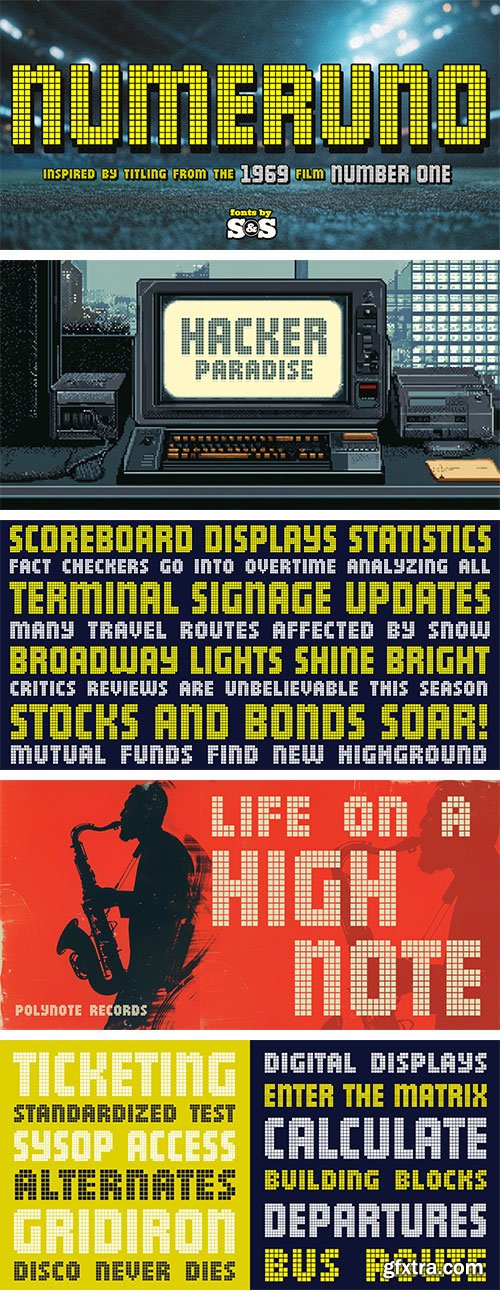
Numeruno Font
Numeruno is a digital matrix display sans that was inspired by screencaptures of a titling sequence for the 1969 film "Number One" featuring Charlton Heston. The titling sequence featured two scales of grid matrix based digital lettering, so we included the smaller squat scale caps as Stylistic Alternates using the same grid matrix.